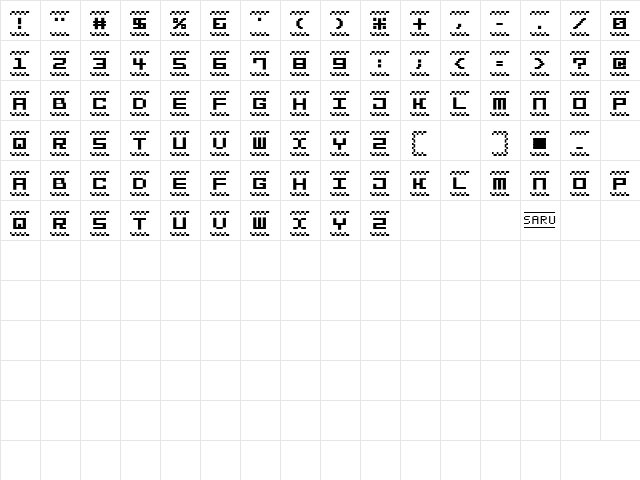
Bit Line15 (sRB) Regular Font Preview
Bit Line15 (sRB) Regular
Design Context for Bit Line15 (sRB) Typeface
Bit Line15 (sRB) offers clean, dependable letterforms without strong stylistic allegiance, making it a practical choice for designers who need flexibility.